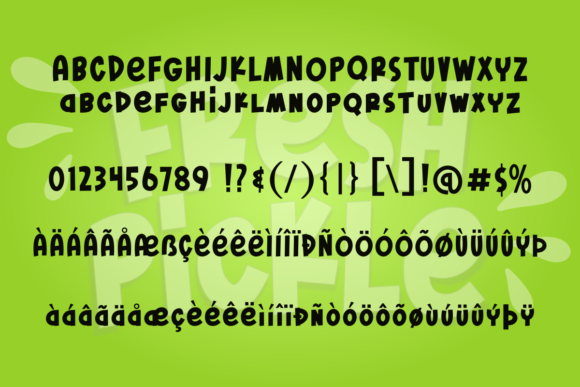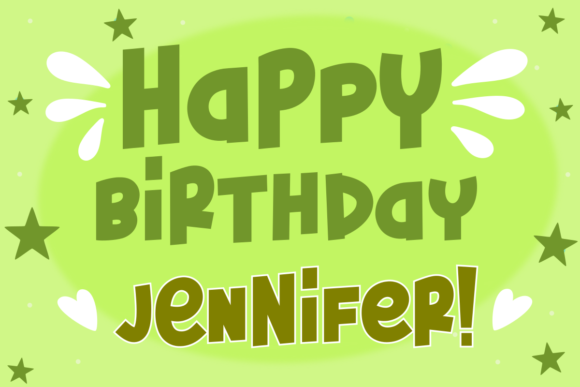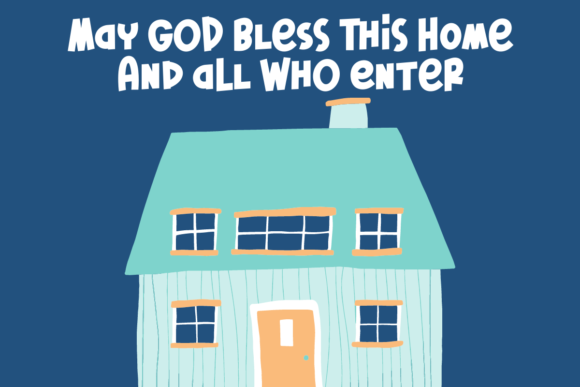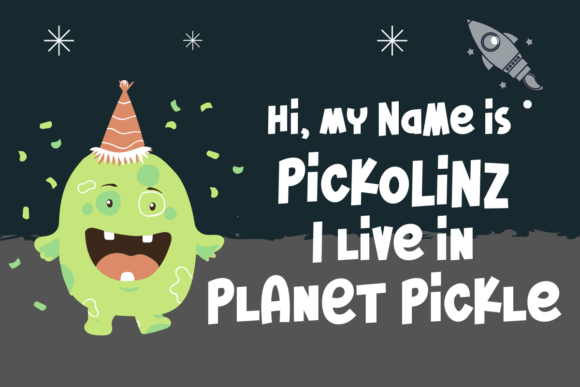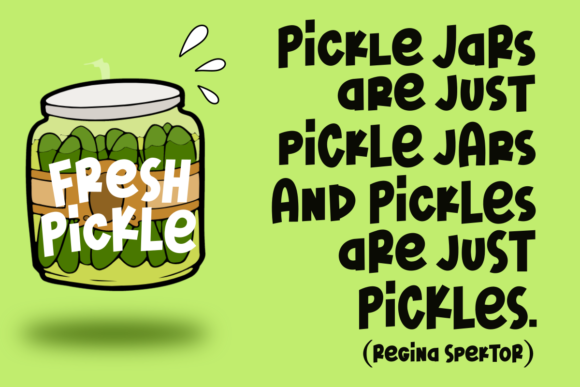
Introduction to Fresh Pickle Font
Fresh Pickle is a fun, chunky lettered and cartoon like display font.
Playful and unique, this font will brighten up each of your designs .
Key Features of Fresh Pickle Font
Why Choose Fresh Pickle Font?
Fresh Pickle Font offers exceptional quality and versatility, making it a valuable addition to your design toolkit. Whether you’re creating for personal projects or commercial use, Fresh Pickle Font delivers professional results.